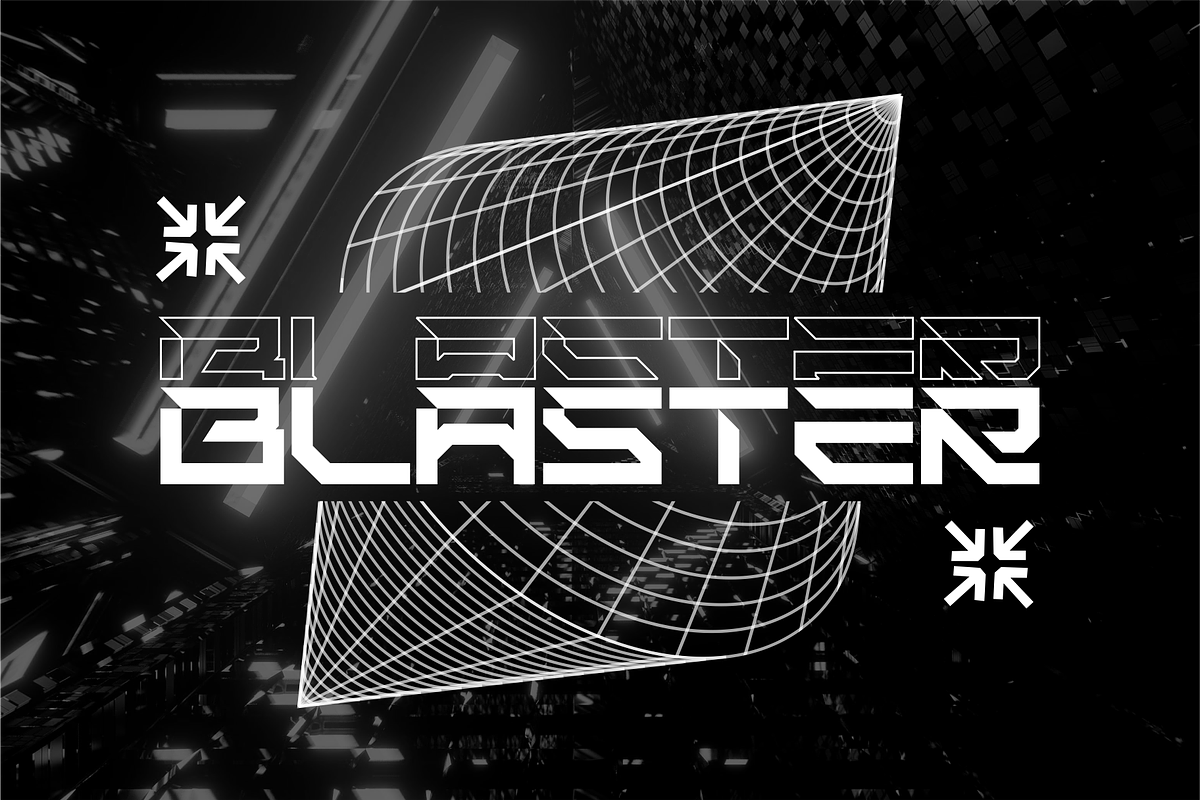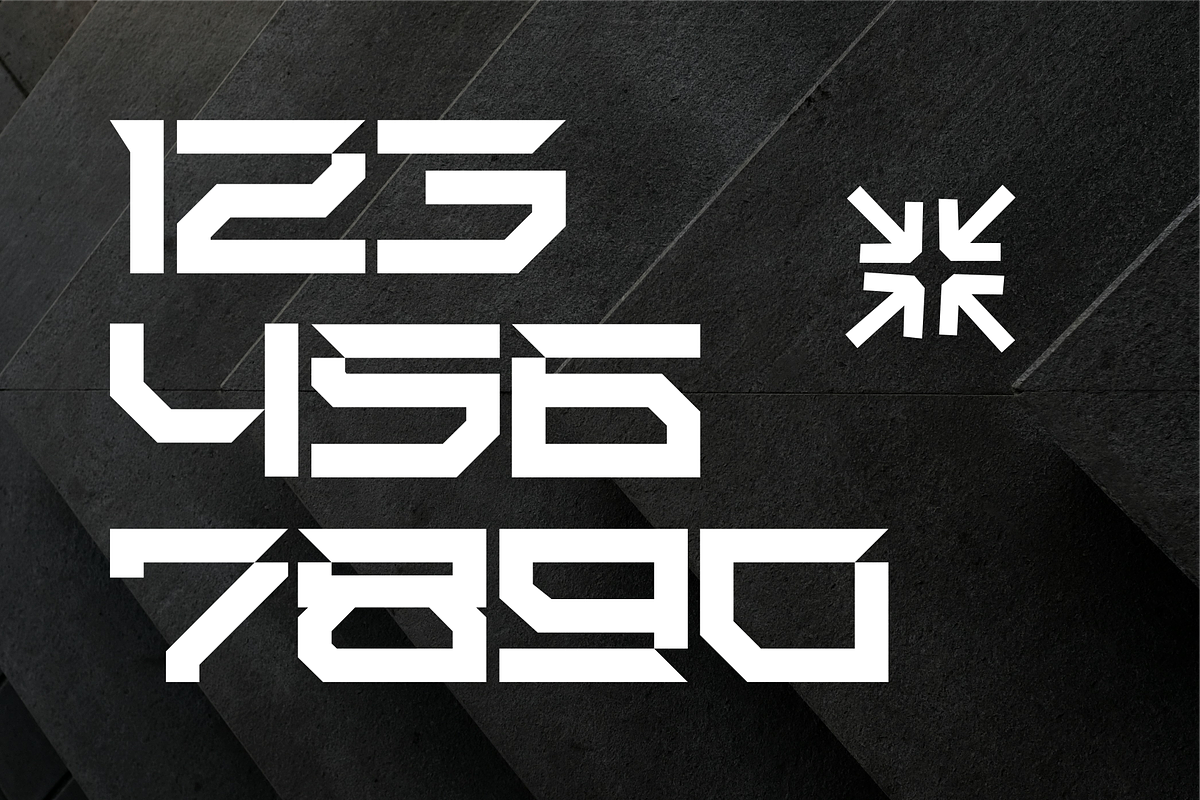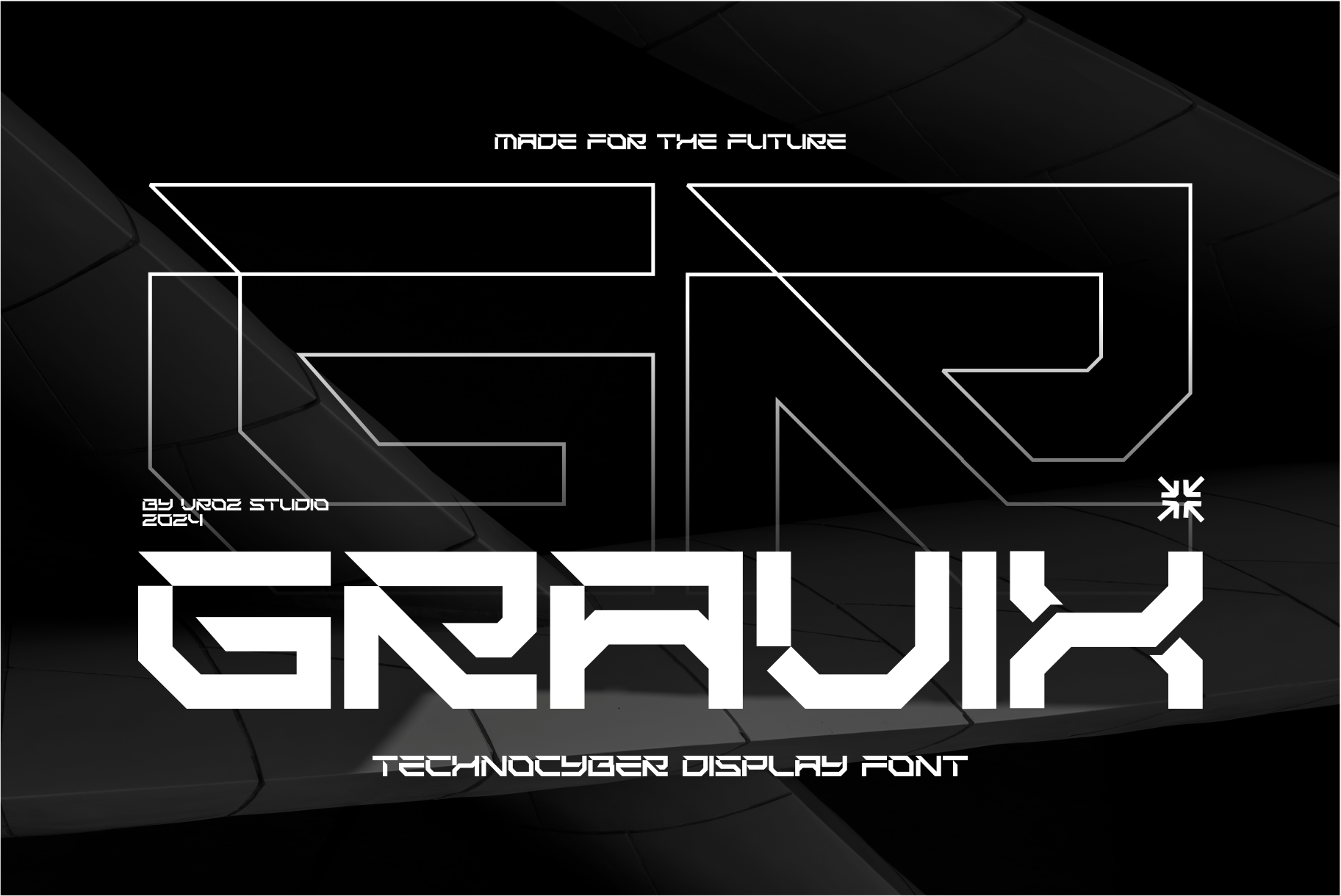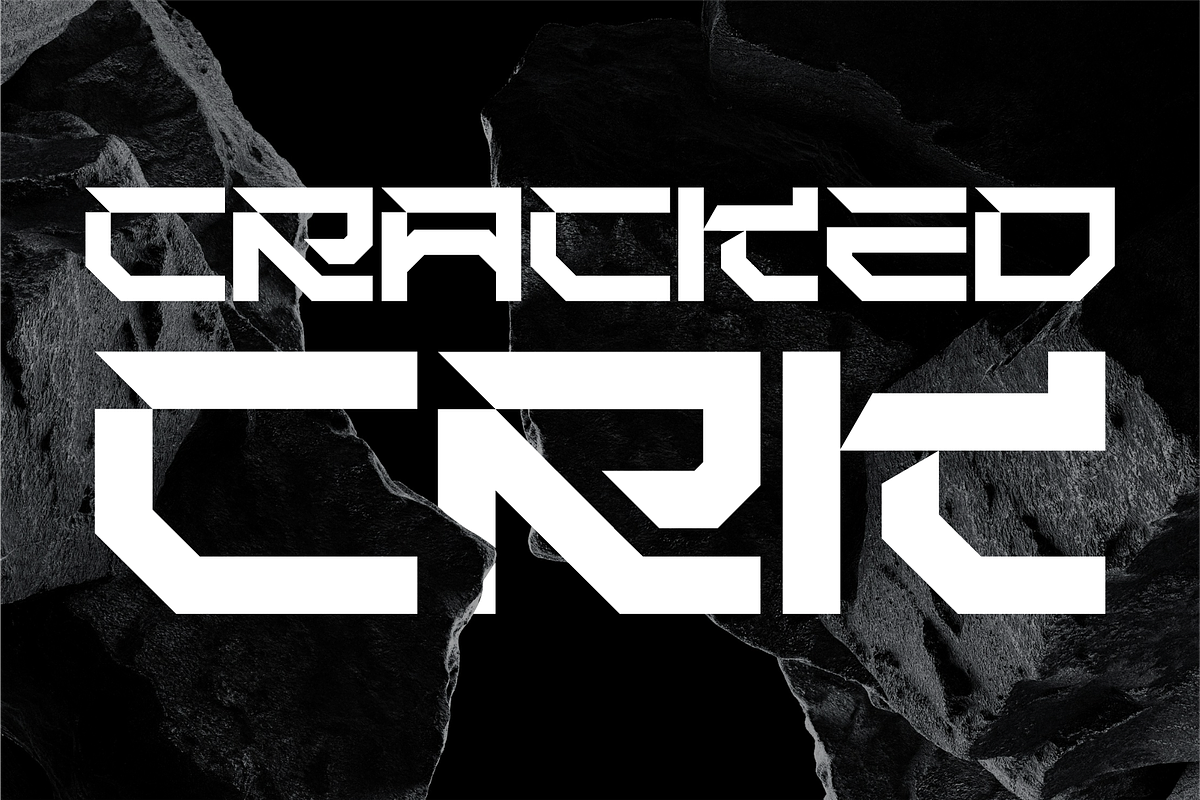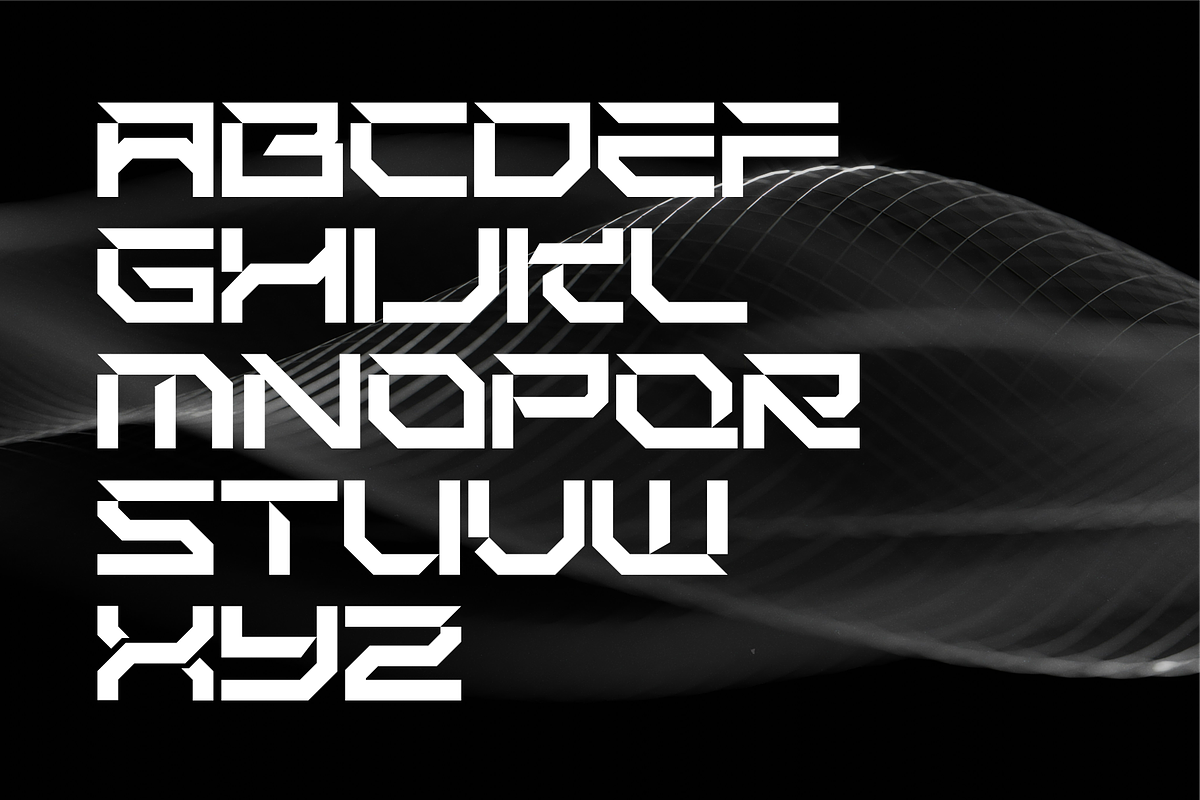
GRAVIX - TECHNOCYBER DISPLAY FONT
GRAVIX - TECHNOCYBER DISPLAY FONT is inspired by a futuristic vibe, especially cyberpunk and futuristic technology. The typeface is based on simple and futuristic tech shapes, making it a hi-tech project created by VROZ STUDIO in 2024.
Gravix Font is perfect for headlines, billboards, magazines, websites, titles, posters, branding, thumbnails, t-shirt designs, streetwear designs, and creative logos, or any project in need of a futuristic touch. With this beautiful futuristic display font, you can truly make your project stand out from the rest. Check out the previews above to get some inspiration on how to use it.